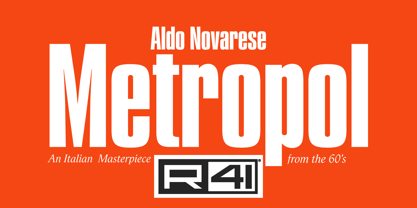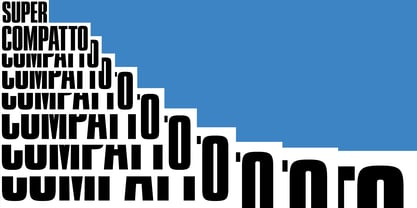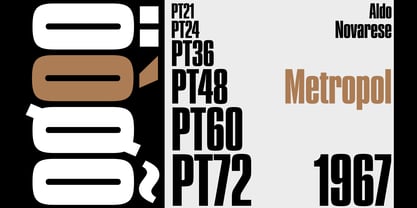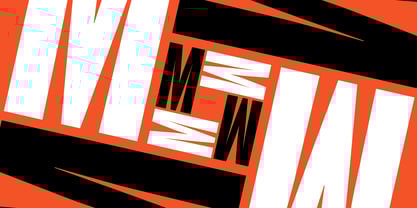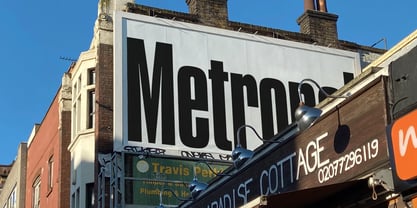
Metropol
by Reber R41
The Metropol Font Family was designed by Aldo Novarese, Fulvio Bisca, Stefano Torregrossa and published by Reber R41. Metropol contains 1 styles. More about this family
Metropol is a modern, graphic prestige typeface that draws inspiration from the classic wooden ‘stick’ typefaces used in last century posters. This compact ‘black’ rounded series is ideal for headlines, slogans, and short announcements, gaining a commanding presence when set against white backgrounds. Metropol captures the essence of urban life, embodying the voice of skyscrapers, bustling traffic, and the vibrant energy of the city that never sleeps. It represents a bold leap into modernity while maintaining a strong connection to its historical roots, a hallmark of Aldo Novarese’s design philosophy. He describes it as a ‘textura of our time’, offering a contemporary reinterpretation of the essential characters found in Gothic writing. Developed from Eurostile, this typeface is the result of a collaborative effort with a team of graphic designers at Fonder Nebiolo’s Artistic Studio, aimed at revitalizing the corporate image. Its striking form makes it a captivating choice for advertisements and headlines in newspapers and magazines, designed to command attention and be heard clearly.
Designers: Aldo Novarese, Fulvio Bisca, Stefano Torregrossa
Foundry: Reber R41